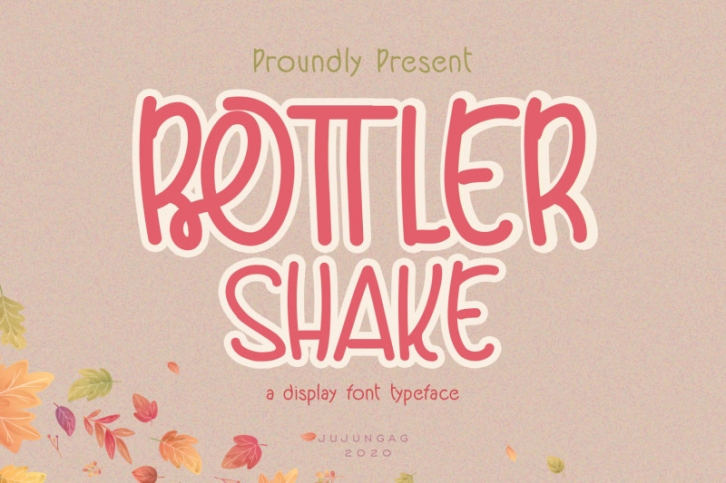
Bottler Shake is a Display Font Typeface with a Ligature, This font has a playful character. The font is work specialty is good for product design like a Template/mockup, T-shirt, Quote or you can use for your logo design, typography design, etc. This product is inspirational for your creative design.